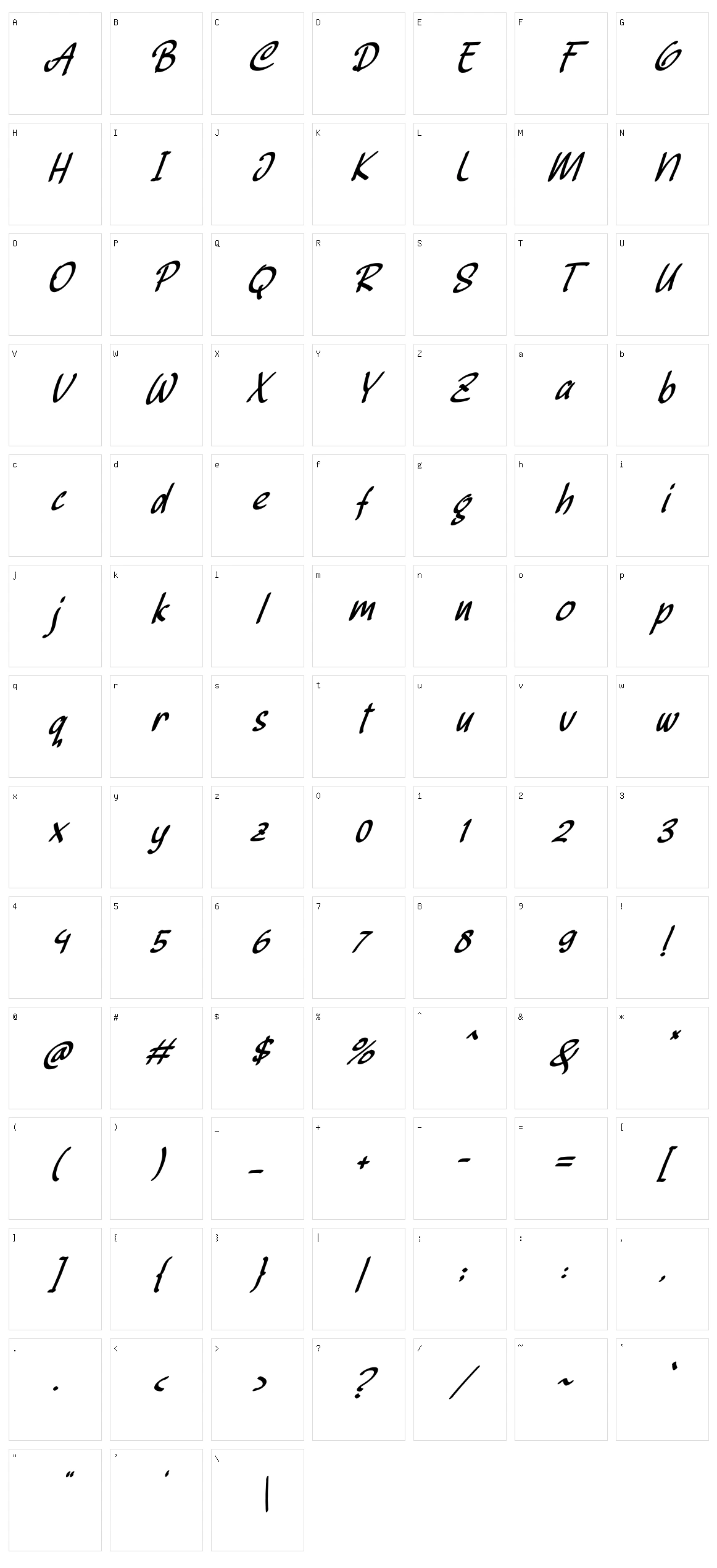
The free font Beckhand is carefully designed by Kong Font, showcasing a thoughtful balance of creativity and usability and falls under the Script font style. When you download the ZIP file, it contains only 460.16 KB of font files, making it lightweight and quick to download. Please review the license details below to understand permitted usage and distribution rights. If license information is not available, we recommend using this font for personal projects only or contacting the author directly for commercial usage permissions.